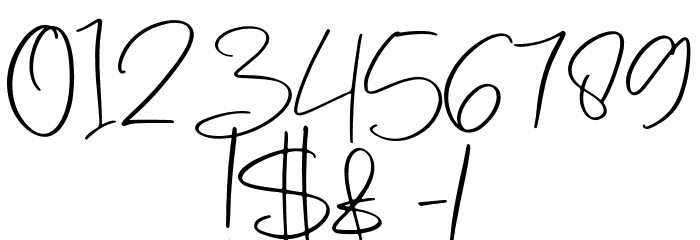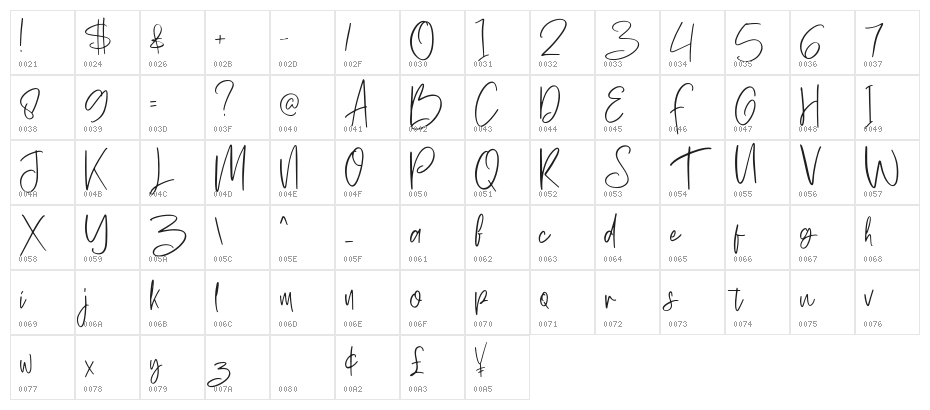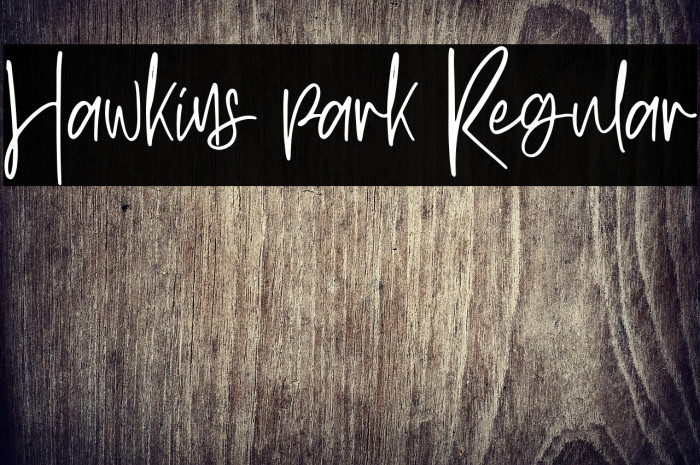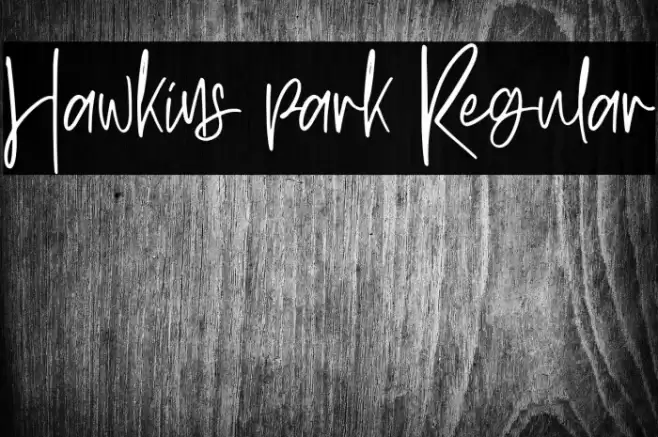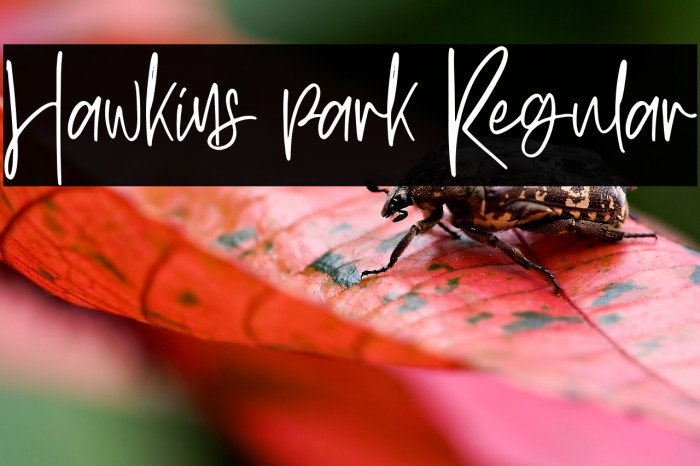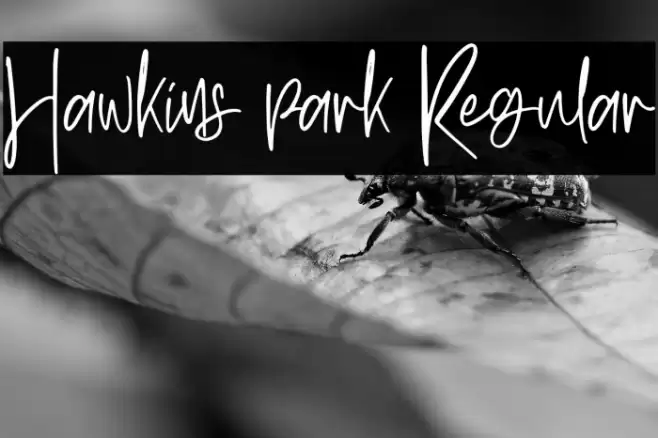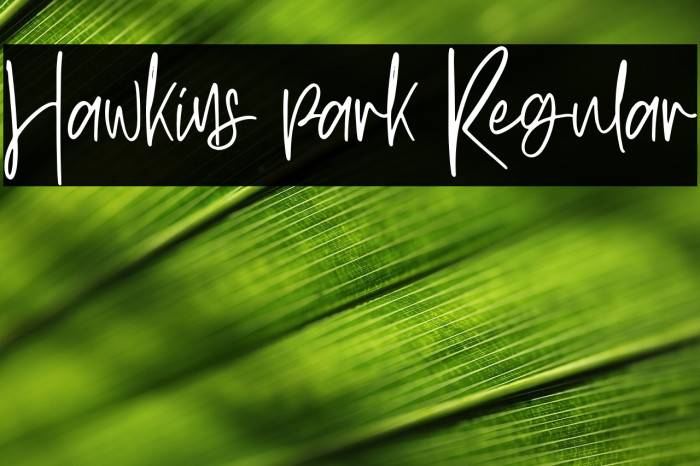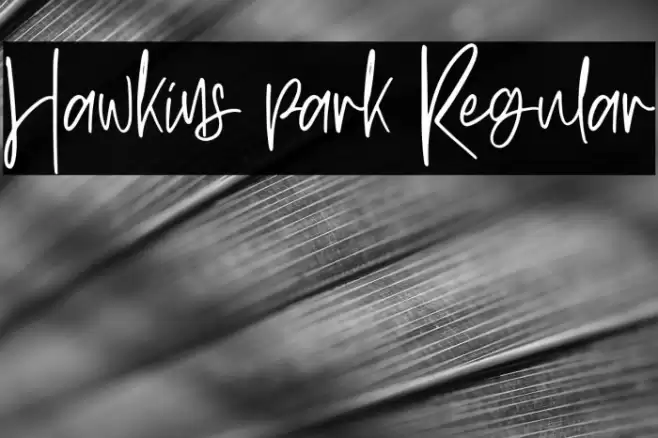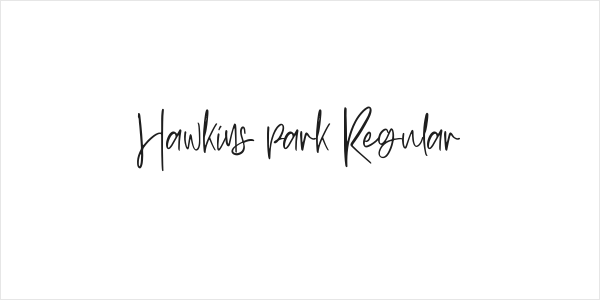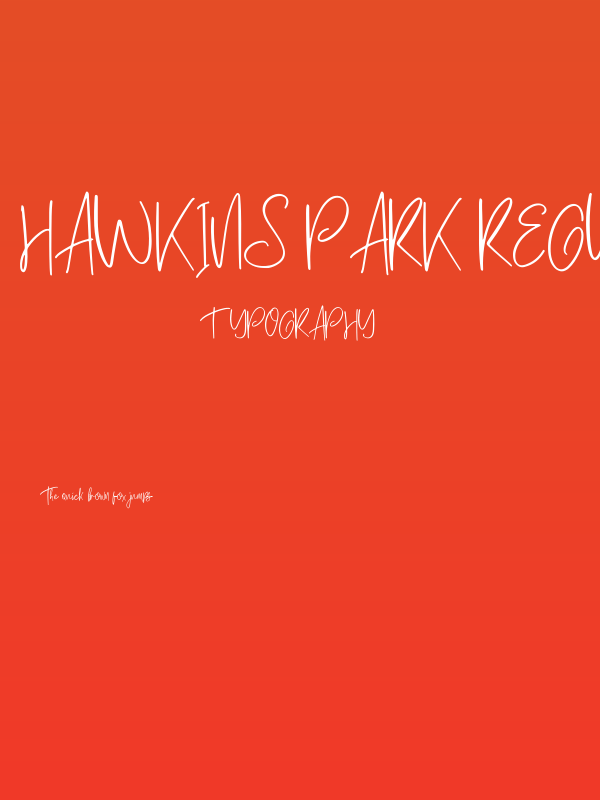
Hawkins park Regular Font
Hawkins park Regular Description
This font features a lively and energetic handwritten style, characterized by its flowing, cursive-like strokes. The uppercase letters are tall and slender, with a playful, slightly irregular baseline that adds to its informal charm. The lowercase letters maintain a consistent style, with loops and curves that enhance its handwritten appeal. Numbers and special characters follow the same aesthetic, ensuring a cohesive look across all text elements. This font exudes a sense of spontaneity and creativity, making it ideal for projects that require a personal touch.
| Use Case | Logos, Headlines, Creative projects |
| Proposed Projects | Ideal for greeting cards, invitations, personal branding, and creative projects. |